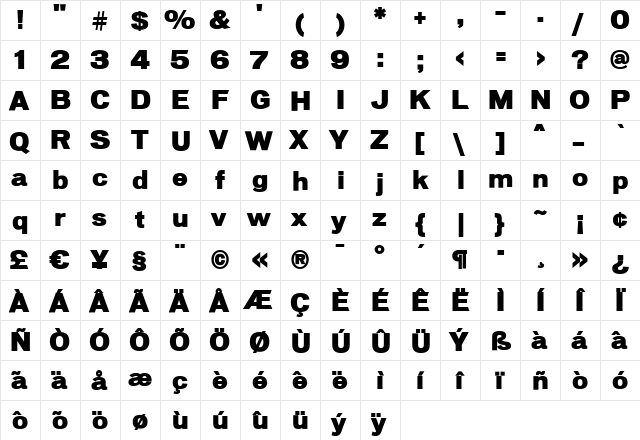
Macromedia Regular
Design Context for Macromedia Typeface
Macromedia takes a measured approach to typography — its balanced proportions and neutral character make it a reliable workhorse for both digital and print work.